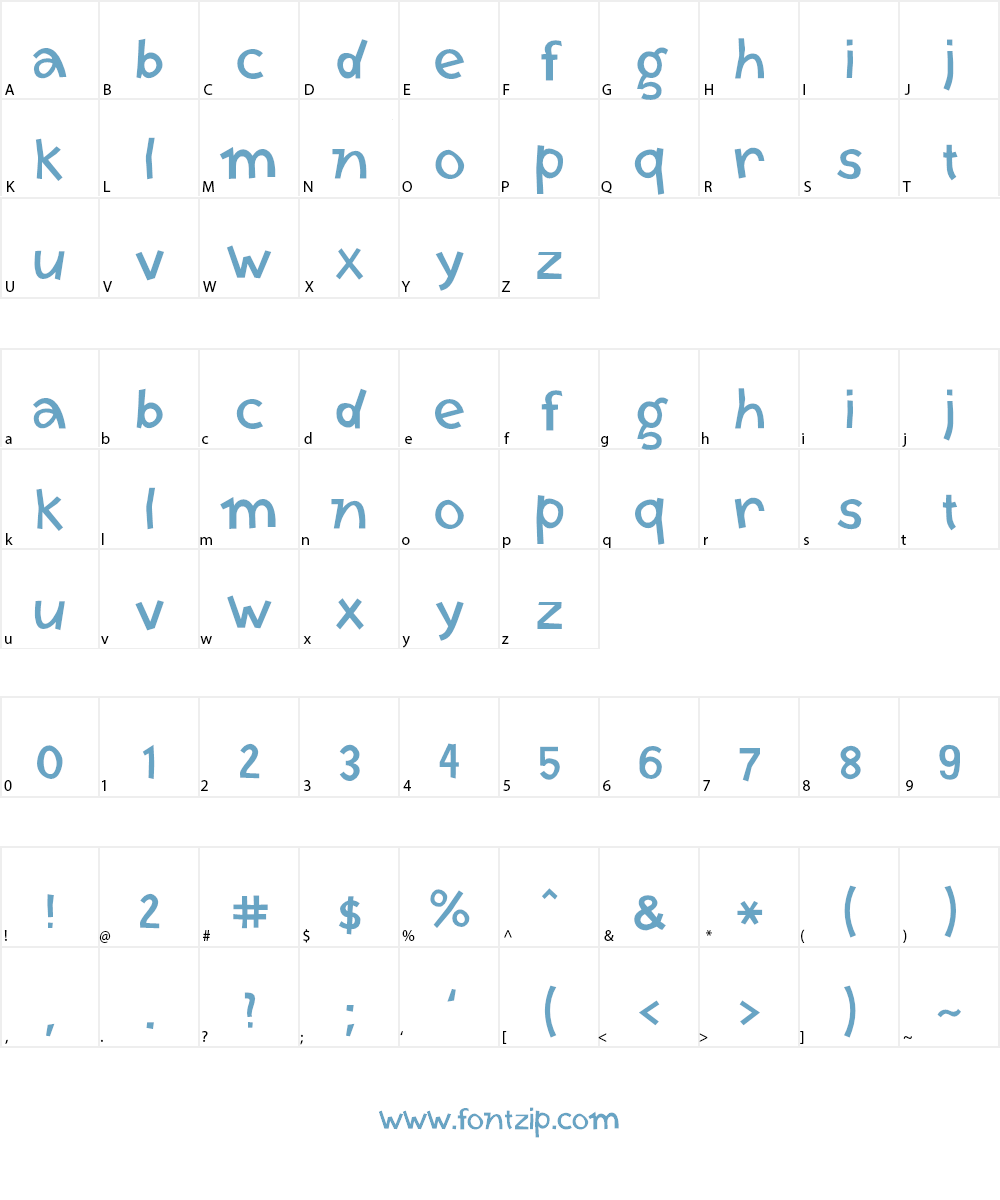
The font Andromeda SL was inspired by a 1970's-like logo design for
the "Andromeda" cinema in Tychy, Poland. Font includes the "Andromeda"
logo at the trademark character. Font contains accented characters for
many Western and Central European languages.